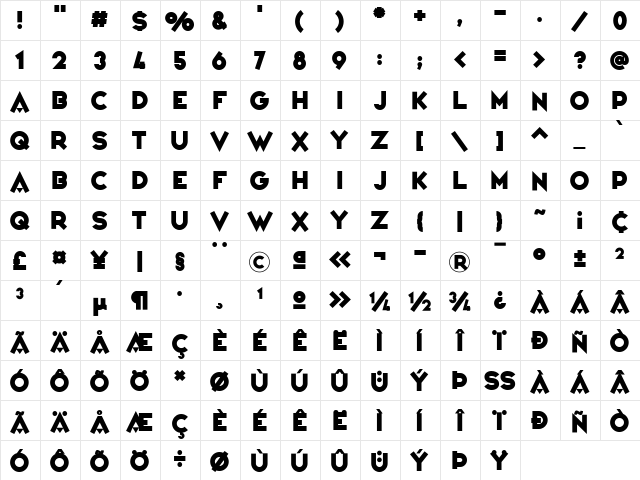
Variet Regular
| Designer | Peter Wiegel |
Design Context for Variet Typeface
Variet is a composed and adaptable typeface that performs quietly and consistently across a wide range of design contexts.